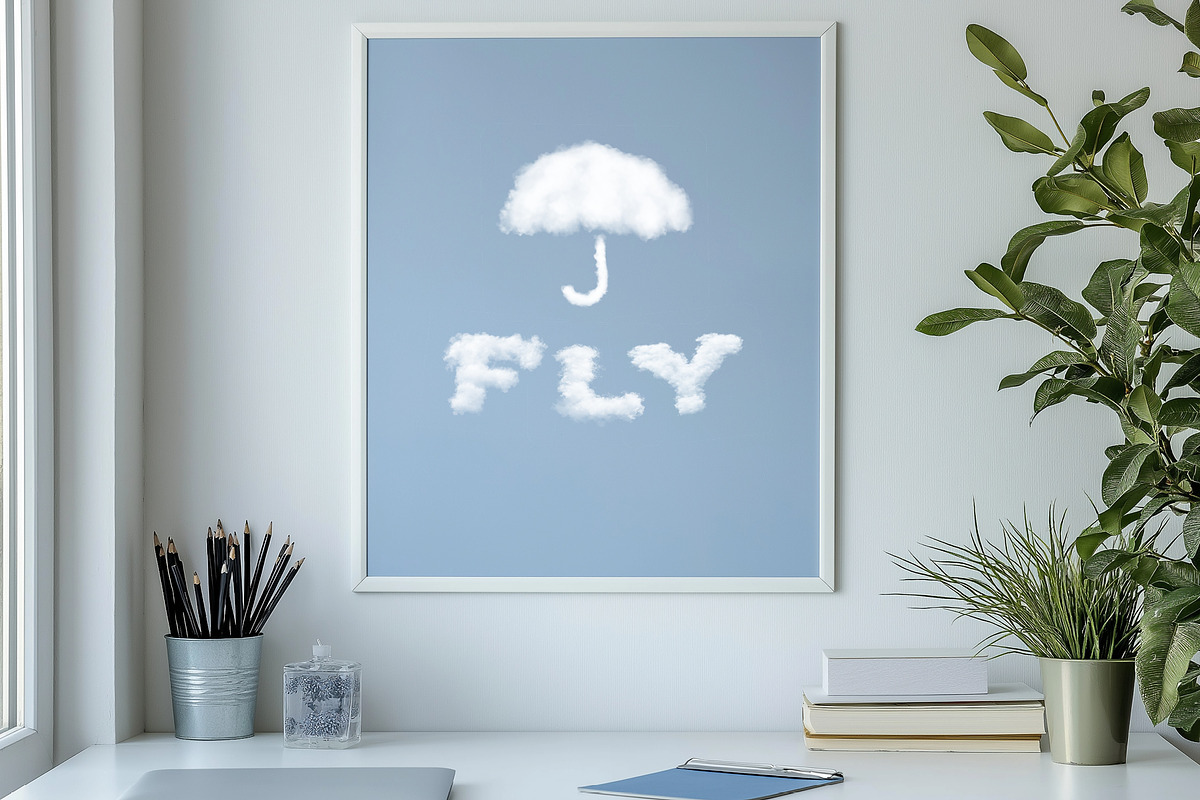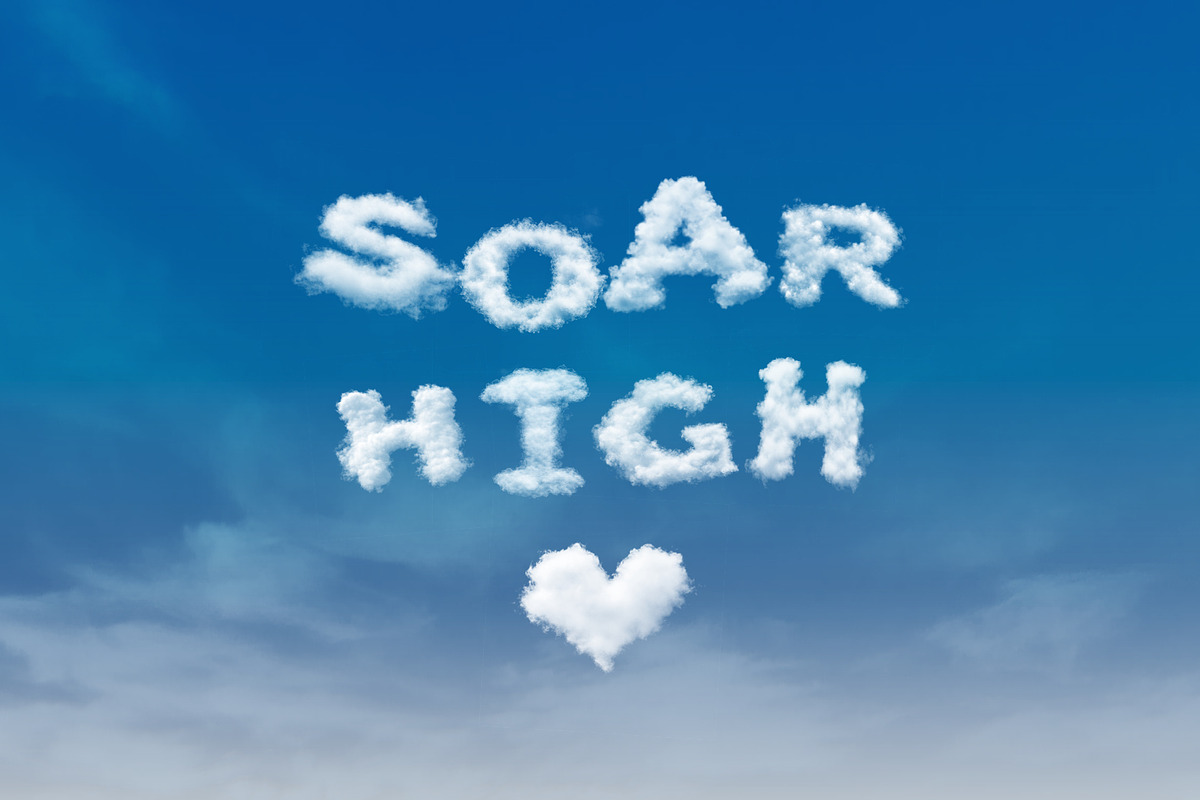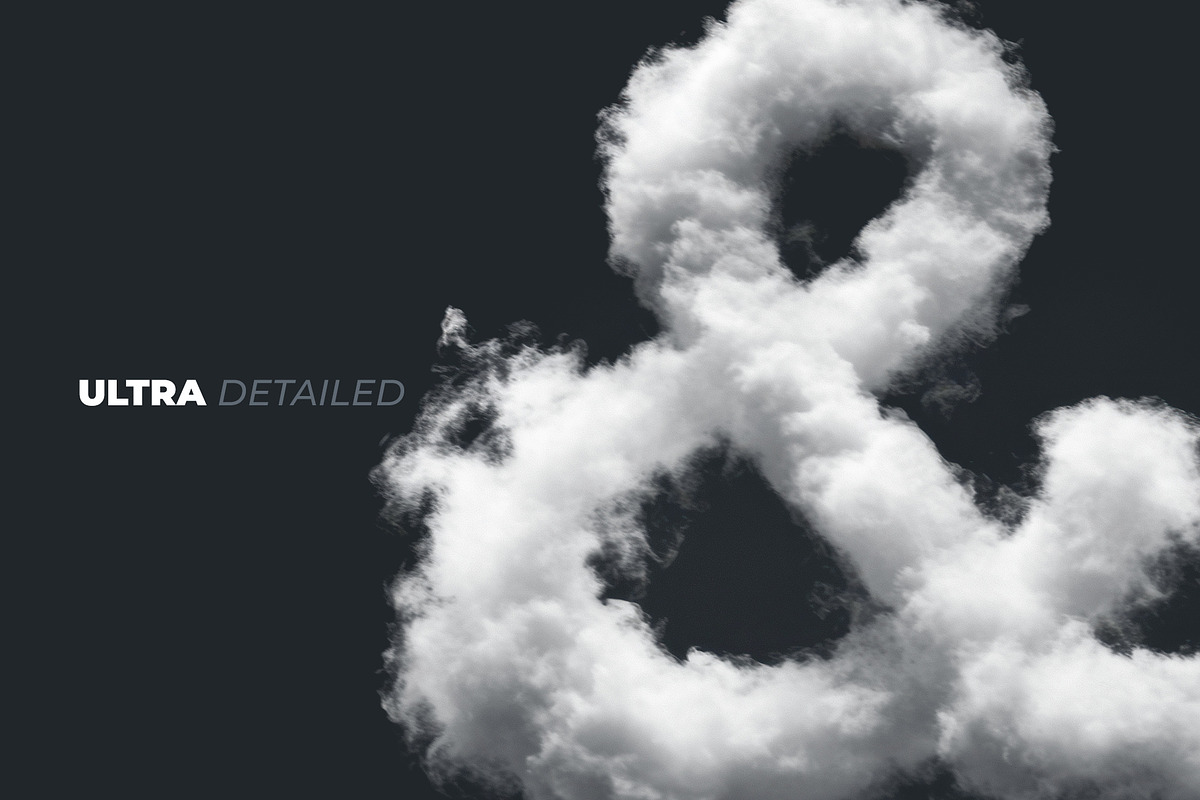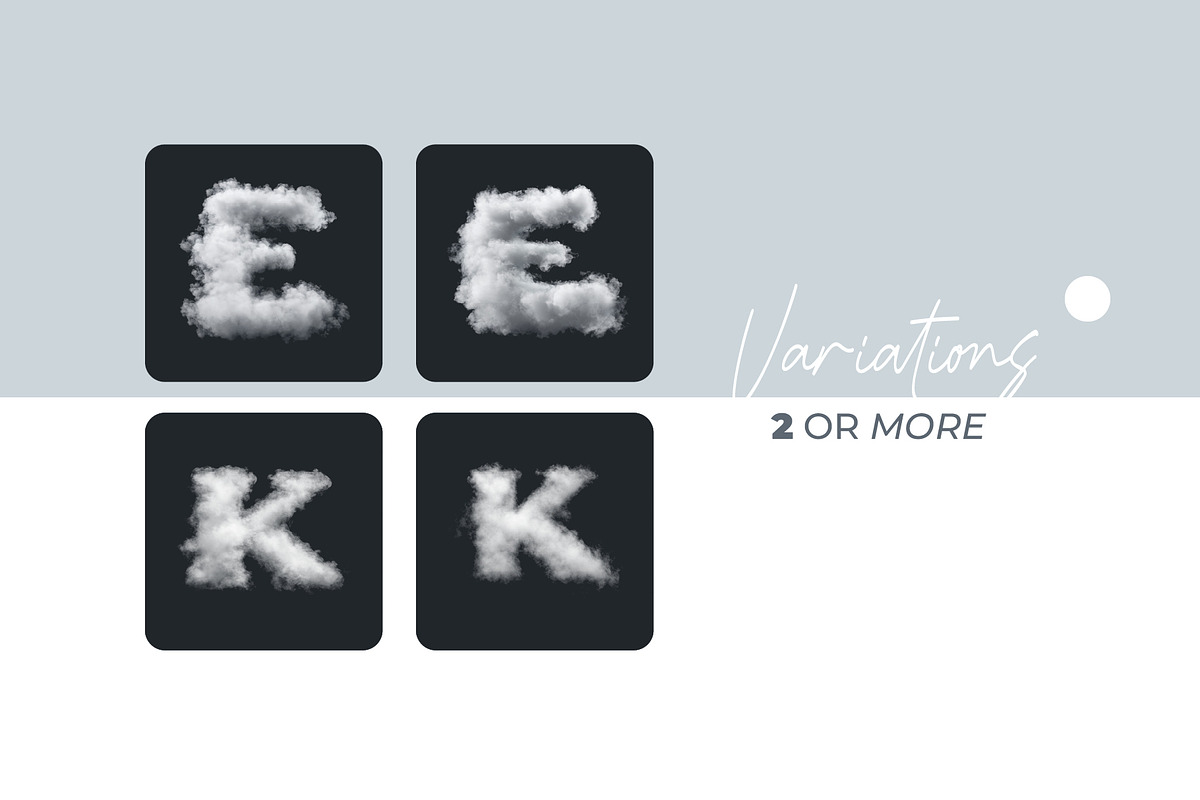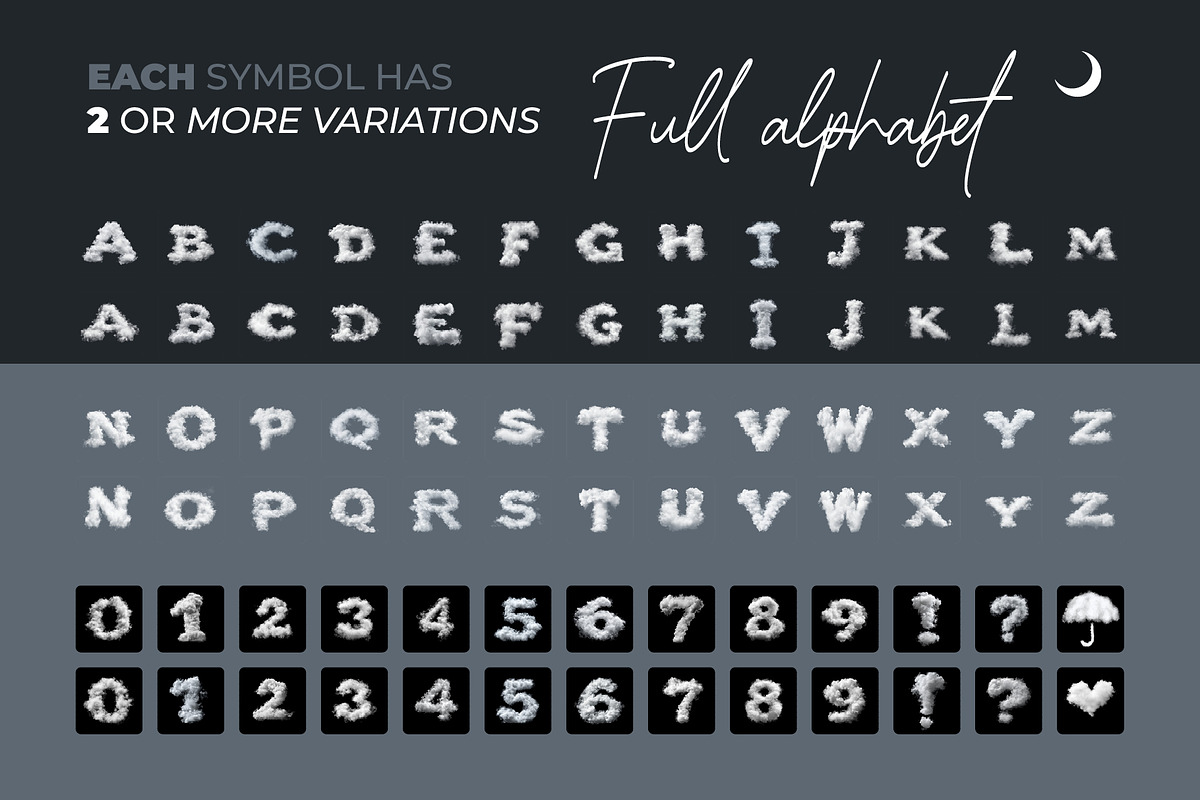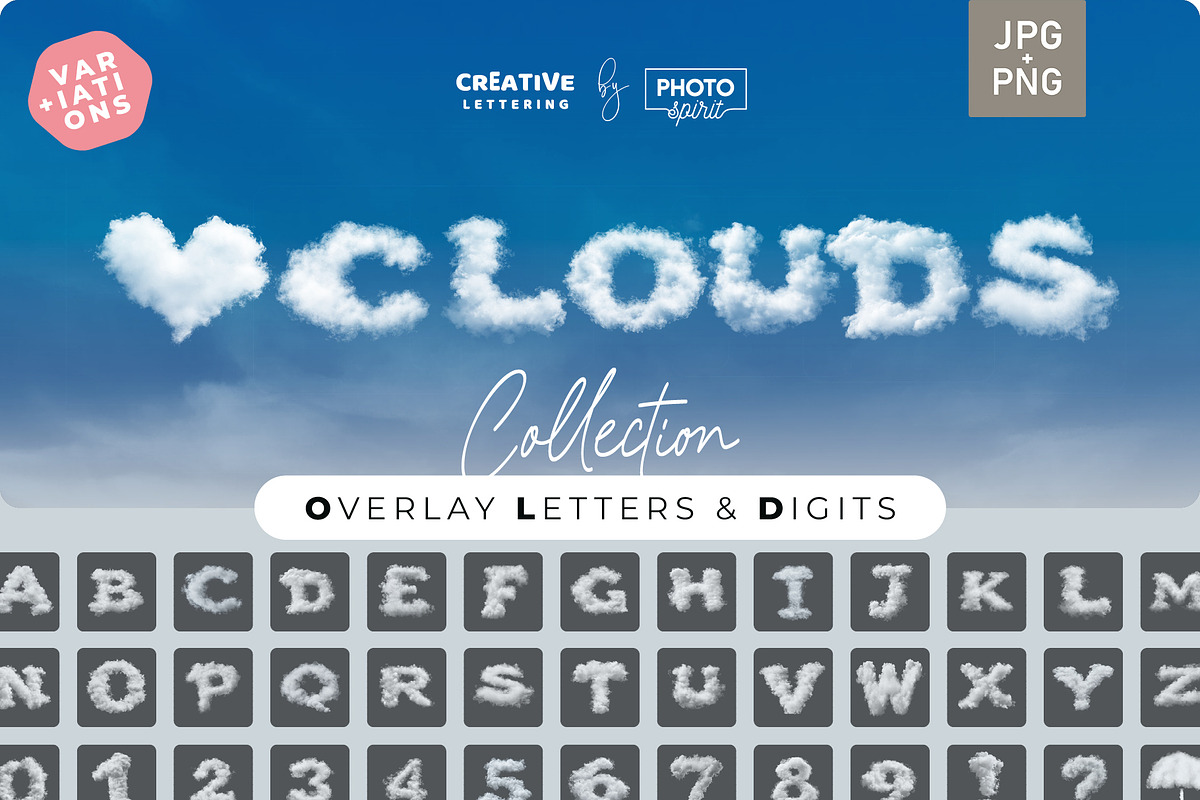
Cumulus Clouds Letters Overlays
Soft & Dreamy Typography with Cumulus Clouds Letters Overlays
Elevate your creative projects with Cumulus Clouds Letters Overlays, a mesmerizing collection of alphabet letters crafted from soft, fluffy clouds. This set is perfect for adding an airy, dreamy, and whimsical touch to your designs, making them feel light, magical, and surreal.
Whether you're working on branding, social media graphics, invitations, posters, or children’s illustrations, these overlays will effortlessly bring a sense of serenity and wonder to your work. Each letter is delicately designed to mimic the natural shapes of cumulus clouds, providing a unique and artistic effect.
☁️ Key Features:
✅ Complete Alphabet & Symbols – Includes uppercase letters, numbers, and essential punctuation marks.
✅ Multiple Cloud Variations – 2–5 unique styles per letter for creative versatility.
✅ Realistic Cloud Textures – Designed with soft gradients and fluffy edges for an authentic sky-like feel.
Let the Cumulus Clouds Letters Overlays lift your designs into the sky with soft, floating elegance! ☁️✨